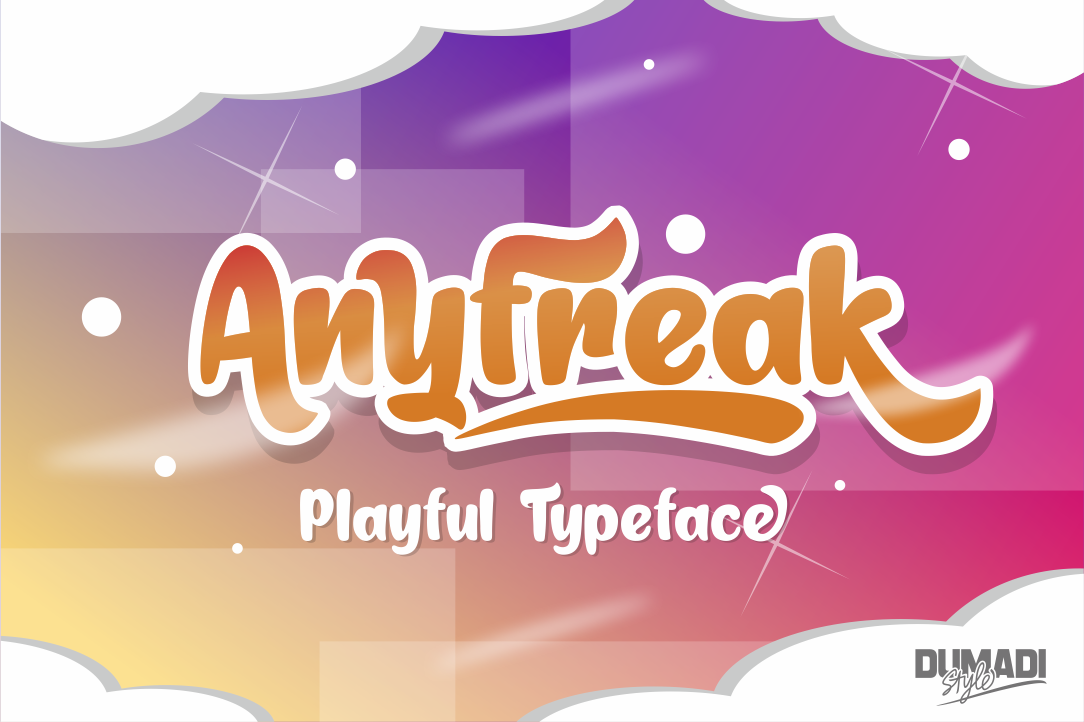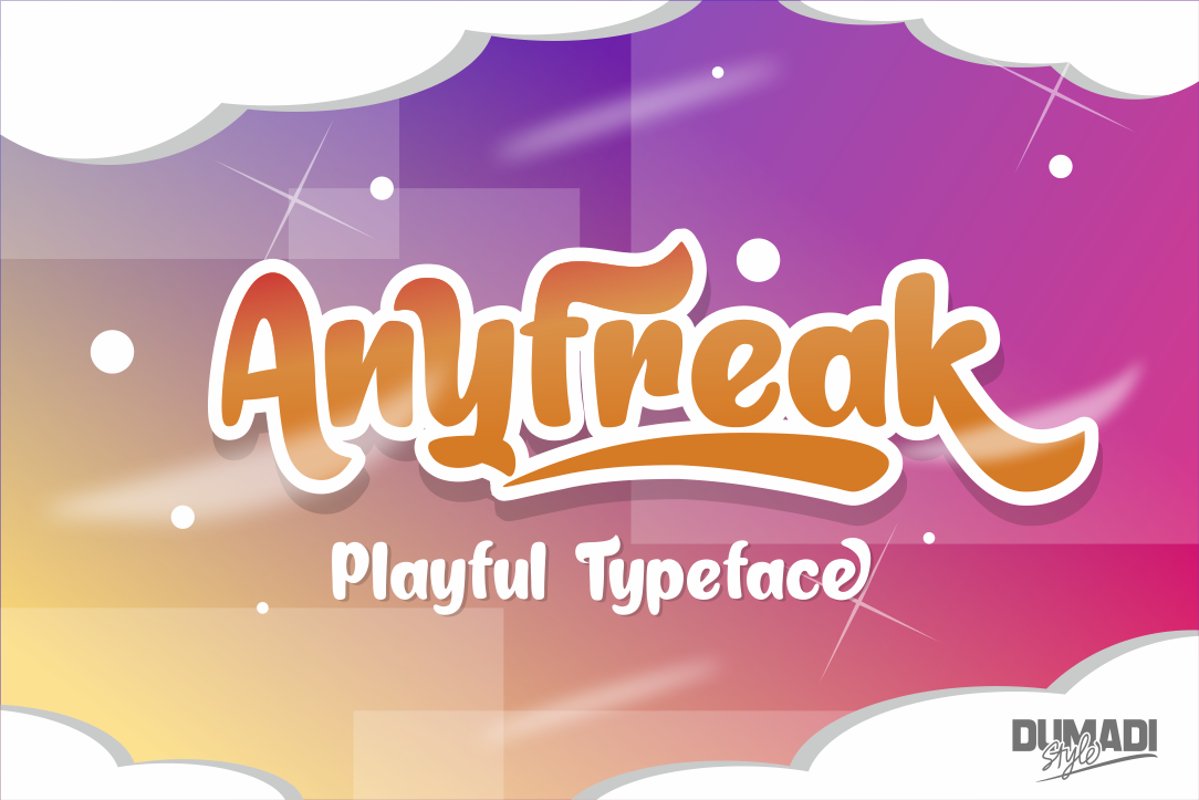
Anyfreak
Introducing Anyfreak - Typefcae & Playful Fonts
Anyfreak is the perfect font for all your fun designs and casual designs.
The cool main font file is equipped with a Font Style that adds harmony in design.
It is suitable for the Project that you are working on in the design of t-shirts, packaging, product brands, movie titles, YouTube titles and other projects.